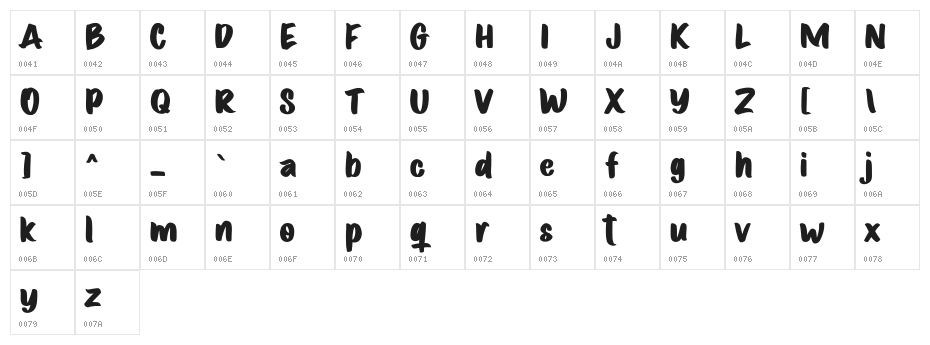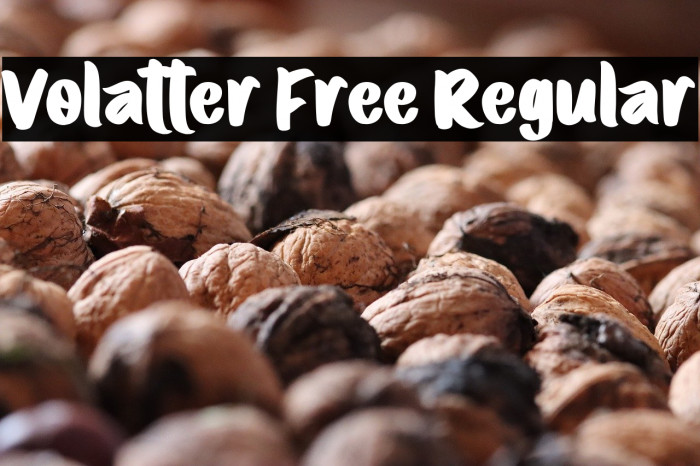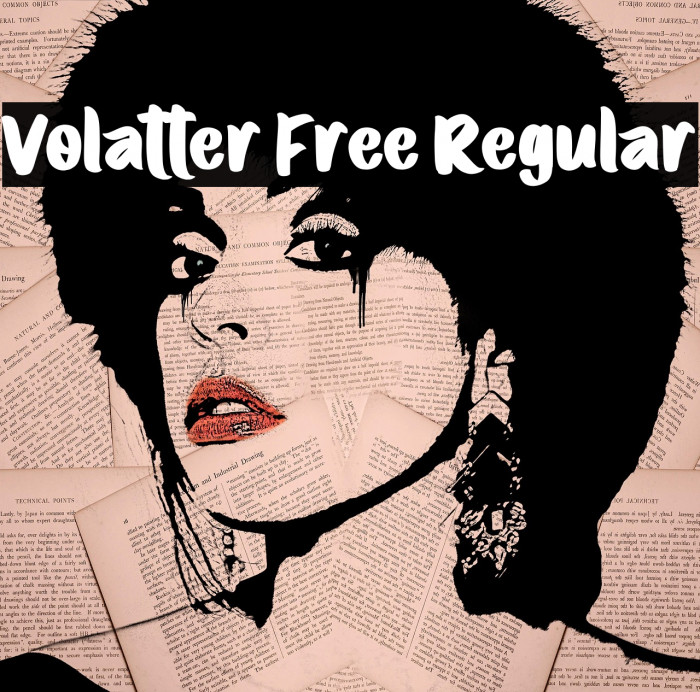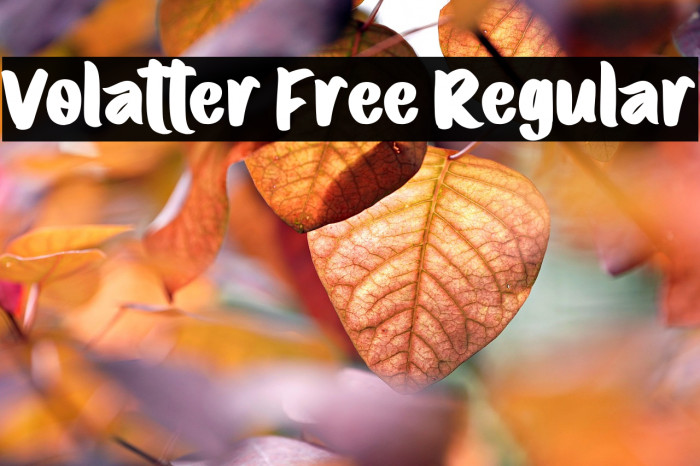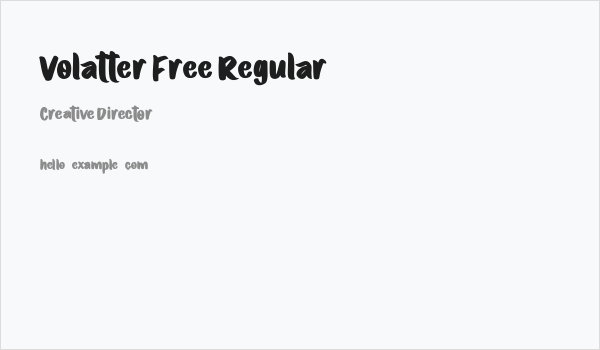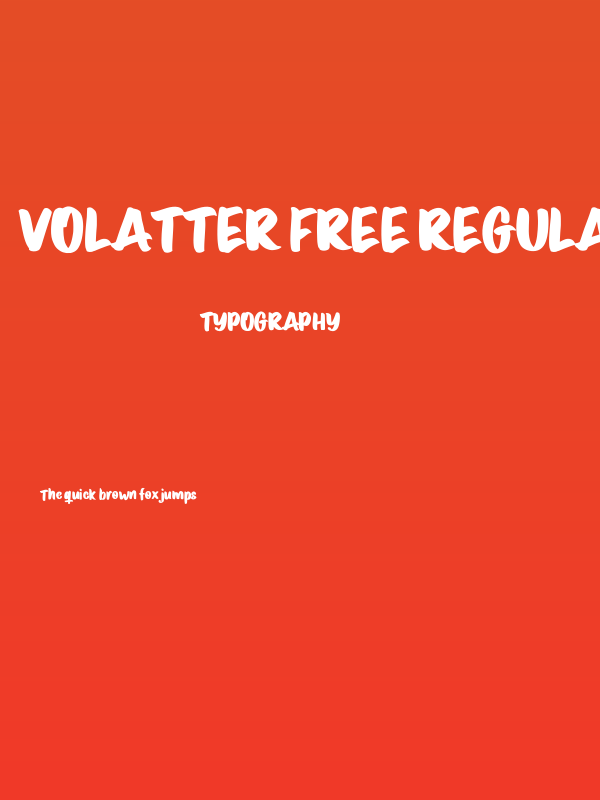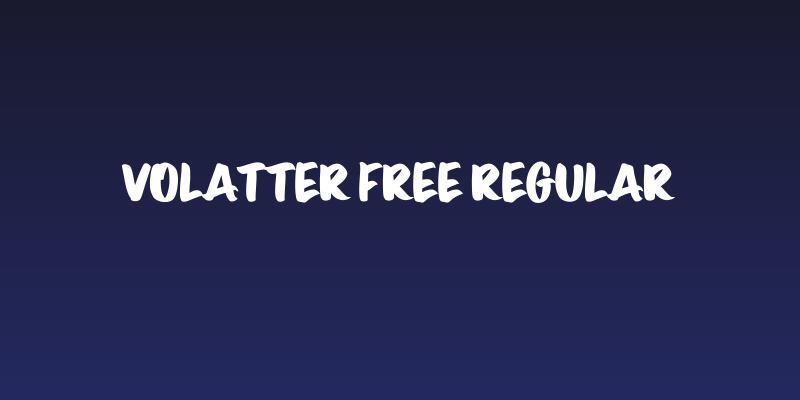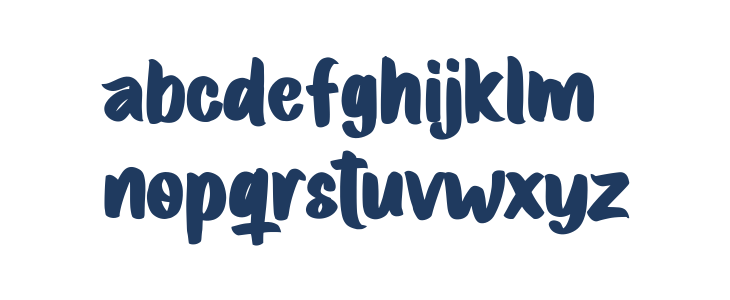
Volatter Free Regular Font
Volatter Free Regular Description
This font features a bold and expressive style with a handwritten appearance. The characters are thick and rounded, giving a playful and energetic vibe. The uppercase and lowercase letters maintain a consistent flow, with smooth curves and a slightly irregular baseline that adds to its casual charm. The font is highly legible, making it suitable for various creative projects. Its boldness and unique style make it stand out, perfect for designs that require a touch of personality and flair.
| Use Case | Logos, Headlines, Posters |
| Proposed Projects | Ideal for branding projects, social media graphics, posters, and invitations where a lively and personal touch is desired. |